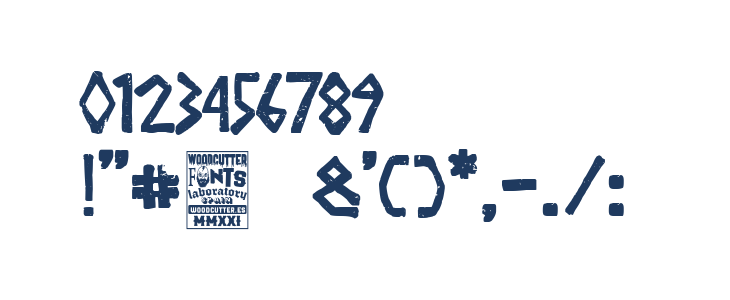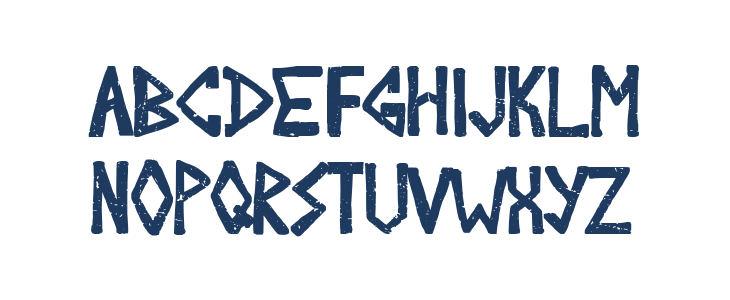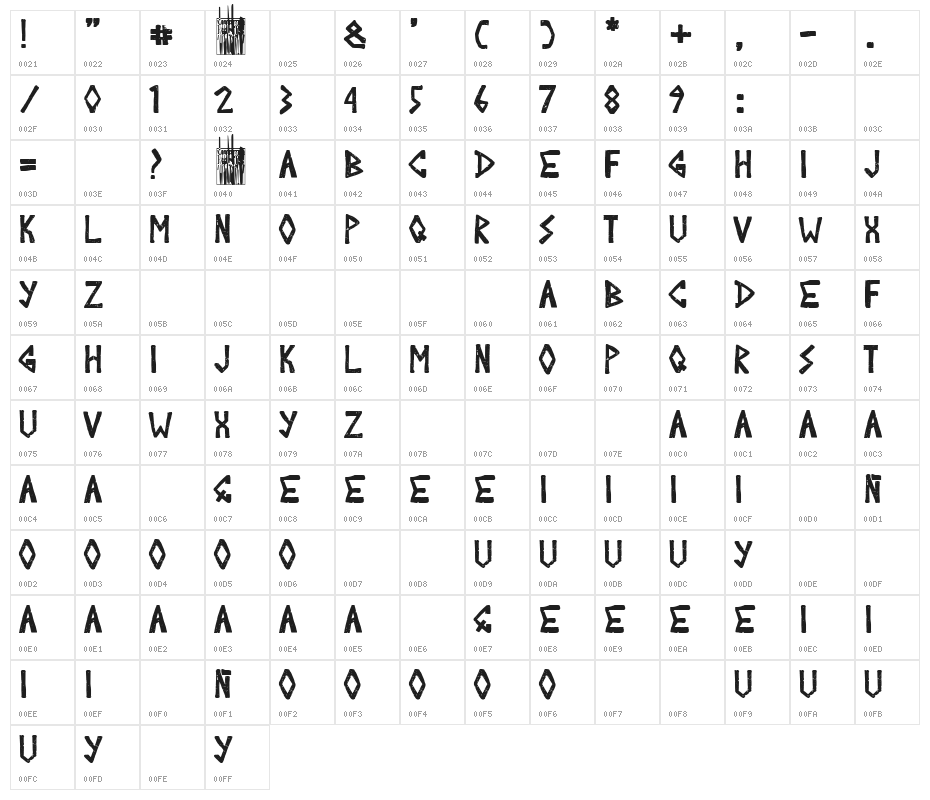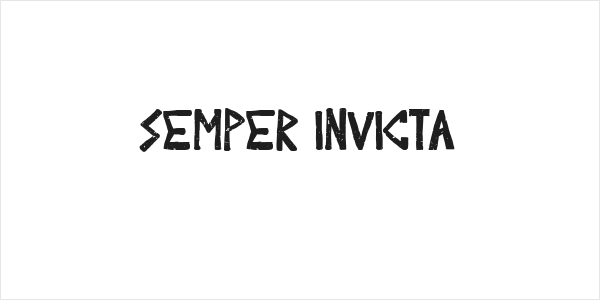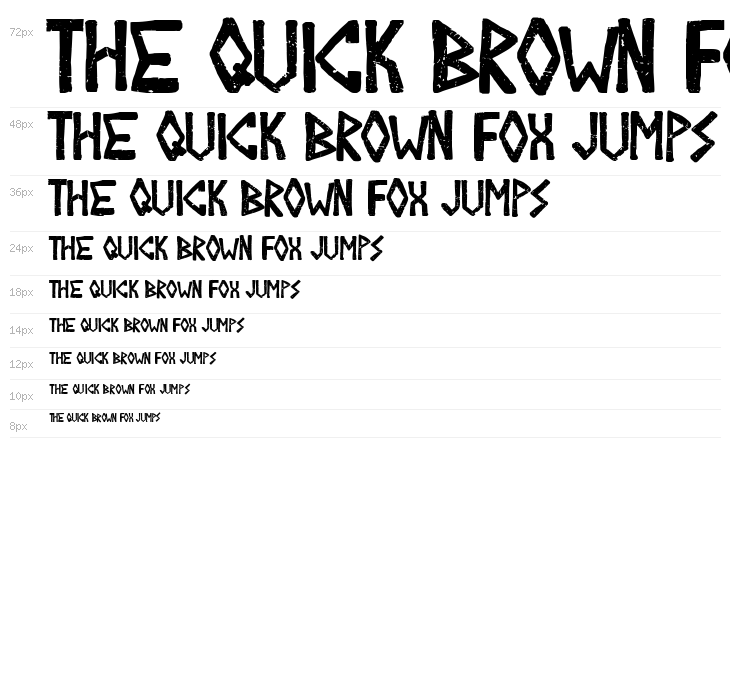
Semper Invicta Font
Semper Invicta Description
A rough, distressed, hand-drawn sans-serif font with irregular edges and a bold, impactful appearance. The characters are uppercase with a slightly condensed width and uneven stroke thickness, giving a grungy, urban feel.
| Width | Condensed |
| Overall Style | Decorative, Grunge, Urban |
| Proposed Projects | Posters, album covers, street art, horror or thriller movie titles, edgy branding, event flyers. |